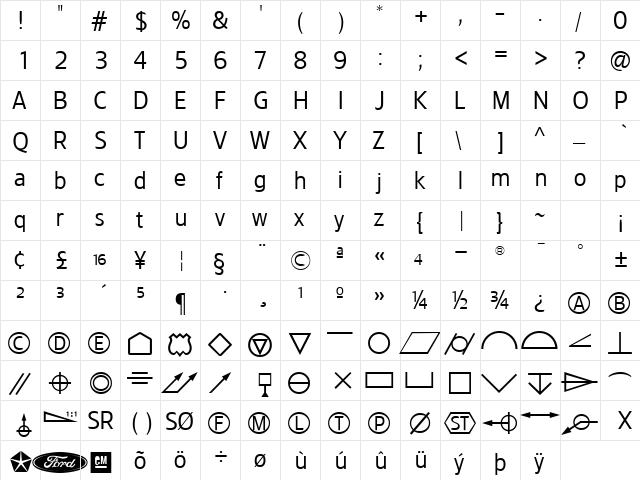
PPAPForever Regular Font Preview
PPAPForever Regular
Design Context for PPAPForever Typeface
PPAPForever takes a measured approach to typography — its balanced proportions and neutral character make it a reliable workhorse for both digital and print work.